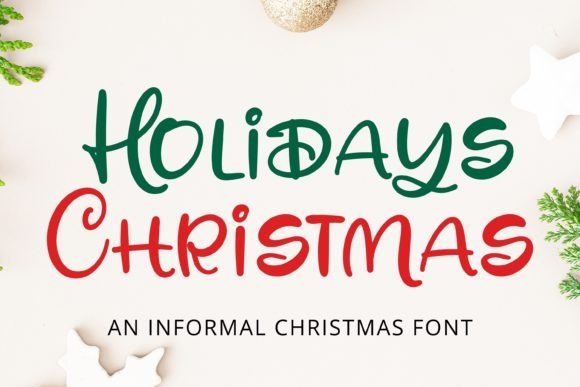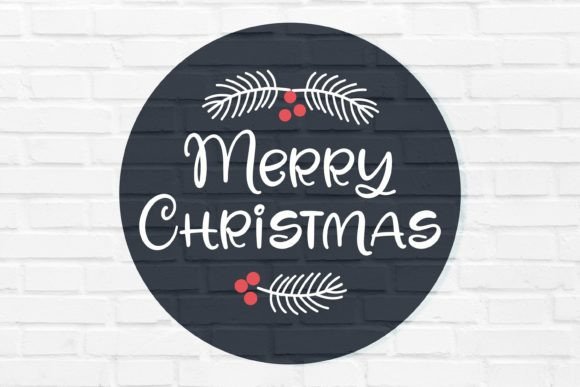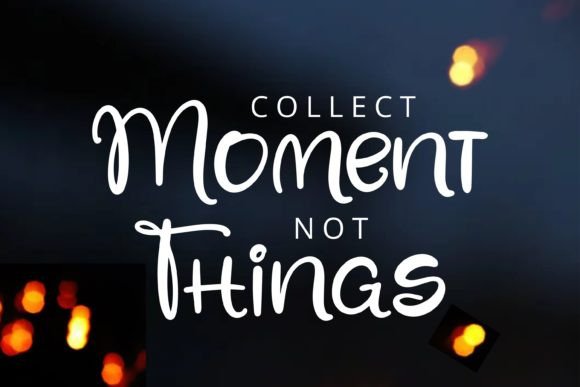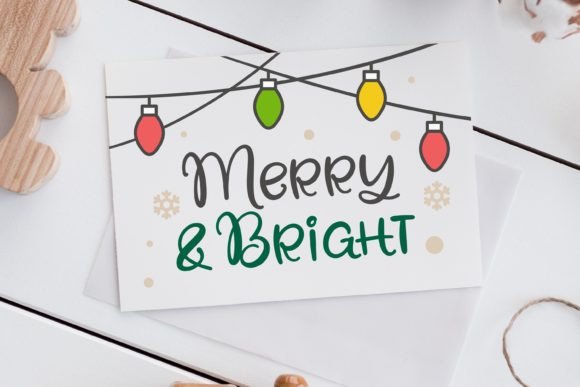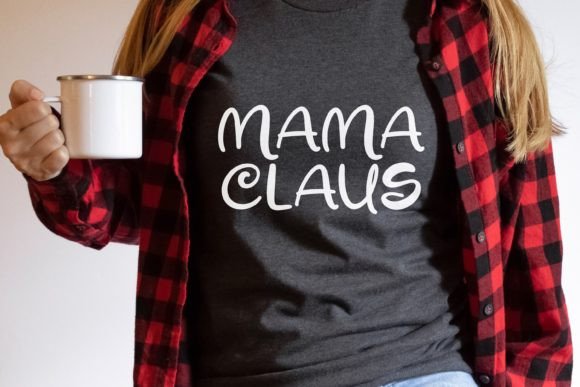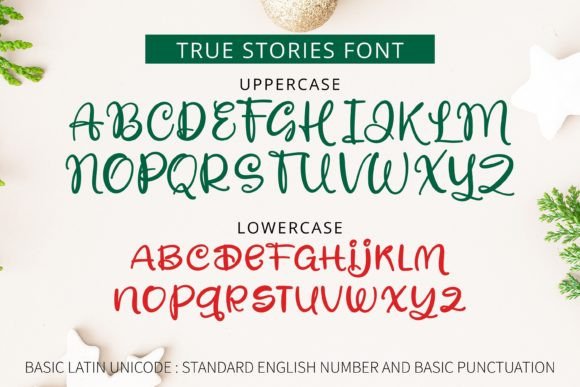
The Magic of Handwritten Fonts: A Christmas Miracle
As a designer, have you ever stumbled upon a font that instantly transports you to a cozy winter evening, surrounded by twinkling lights and the warmth of a crackling fireplace? For me, that moment came when I discovered the Holidays Christmas Font – a charming, handwritten font that’s perfect for adding a personal touch to your designs.
This delightful font is designed to evoke the feeling of chalkboard quotes and teaching materials, making it an ideal choice for educational and creative projects. With its authentic look and feel, the Holidays Christmas Font adds a touch of realism to your designs, making them feel more approachable and engaging. Whether you’re a seasoned designer or a DIY enthusiast, this font is a valuable addition to your toolkit, guaranteed to bring a smile to your face and a touch of festive cheer to your projects.
Holidays Christmas Font Key Features
- Unique Characteristics: Includes festive holiday characters and symbols, making it ideal for Christmas and winter-themed designs
- Font Style: Comes in a bold, playful style, perfect for adding a touch of holiday cheer to your designs
Holidays Christmas Font Review
Overall, I think the Holidays Christmas Font has some great qualities, but it also has some limitations. Let’s dive into the good stuff first! ✨
- The font’s playful and festive vibe is perfect for holiday-themed designs, especially Christmas and winter-related projects.
- The font includes a wide range of characters, including uppercase and lowercase letters, numbers, and punctuation marks, making it easy to use in various contexts.
- The font’s bold and cheerful style is sure to grab attention and add a fun touch to any design.
However, there are some limitations to consider ⚠️:
- The font may be too over-the-top for some designs, and its playful vibe might not be suitable for more serious or formal projects.
- The font’s bold style can be overwhelming if used in large quantities, so it’s essential to use it in moderation.
- The font’s availability is limited, which might make it harder to find and purchase, especially for designers who prefer more widely available fonts.
Overall, I think the Holidays Christmas Font is a great choice for designers who want to add a festive touch to their holiday-themed projects. However, it’s essential to consider the font’s limitations and use it judiciously to avoid overwhelming the design.
For optimal results, use the Holidays Christmas Font in conjunction with other festive elements, such as snowflakes, holly, or candy canes. Experiment with different font sizes and styles to create a unique look. Consider using the font in combination with a bold or italic style for added emphasis.
The Holidays Christmas Font is ideal for creating festive holiday cards, invitations, and social media posts. It’s also perfect for adding a touch of holiday cheer to your website or blog. Use it to create eye-catching headings, titles, or captions that capture the spirit of the season.
Alternatives to Holidays Christmas Font
Great Vibes is a modern, handwritten font ideal for creating a festive and casual atmosphere. It’s perfect for use in invitations, social media posts, and advertising materials. Great Vibes is more playful and informal compared to Holidays Christmas Font, making it suitable for younger audiences.
Carolyna Pro is a elegant, script font that exudes sophistication and luxury. It’s ideal for use in high-end branding, advertising, and packaging materials. Carolyna Pro is more refined and polished compared to Holidays Christmas Font, making it suitable for upscale and premium products.
Playfair Display is a luxurious, serif font that adds a touch of elegance to any design. It’s perfect for use in invitations, greeting cards, and special occasion materials. Playfair Display is more formal and sophisticated compared to Holidays Christmas Font, making it suitable for formal events and high-end branding.